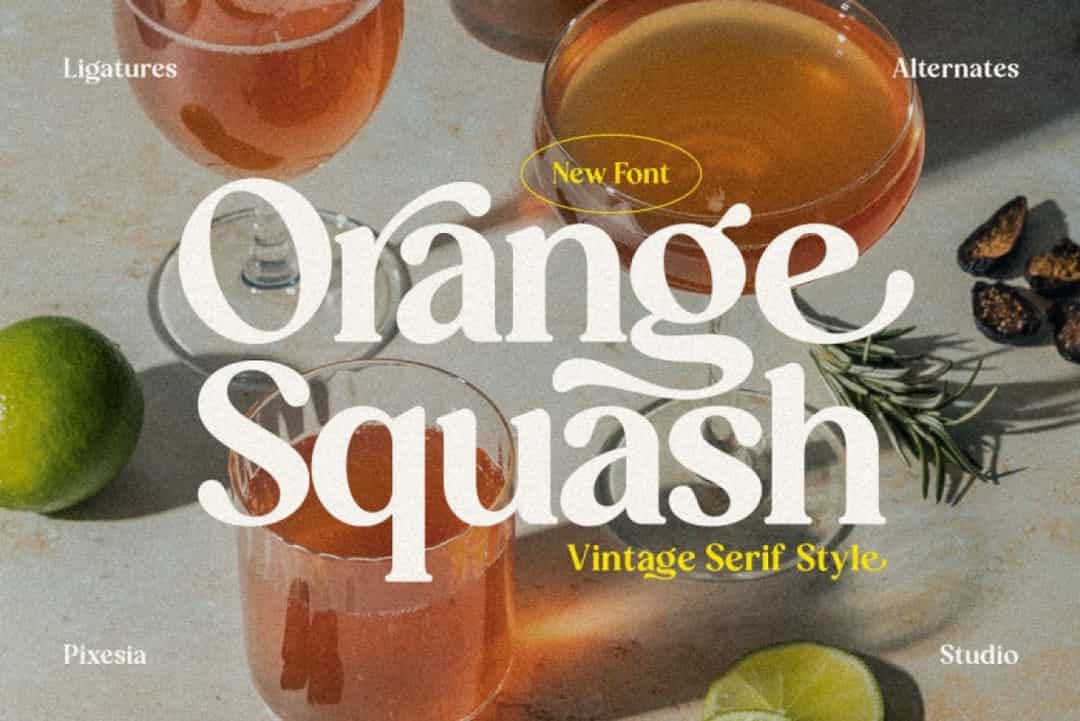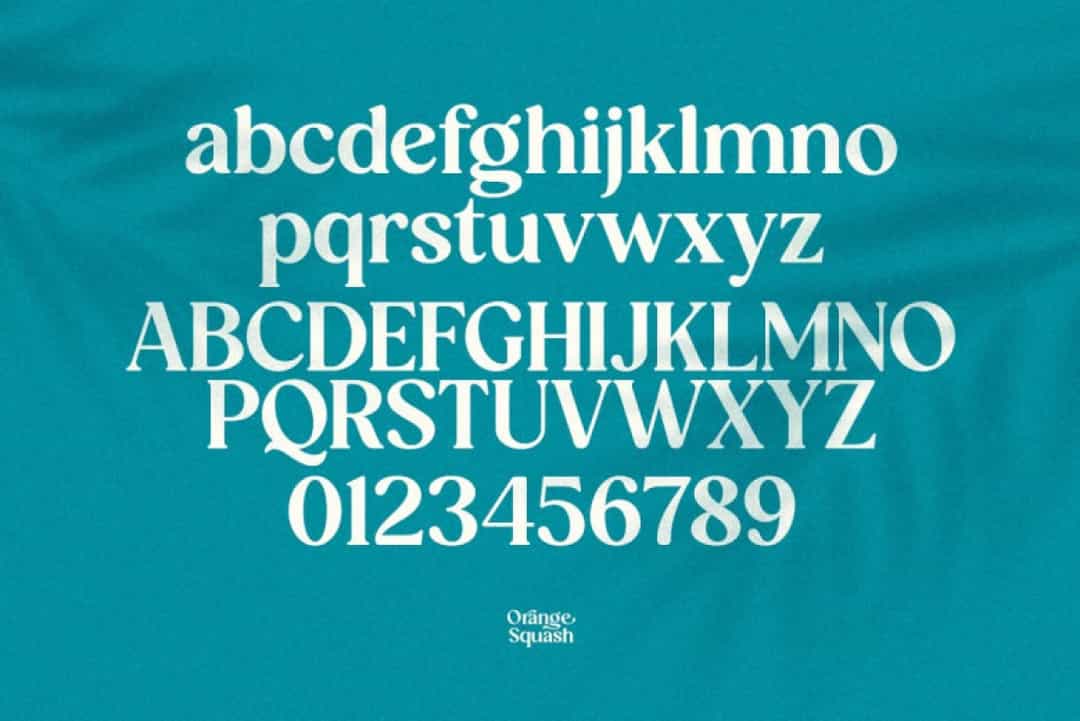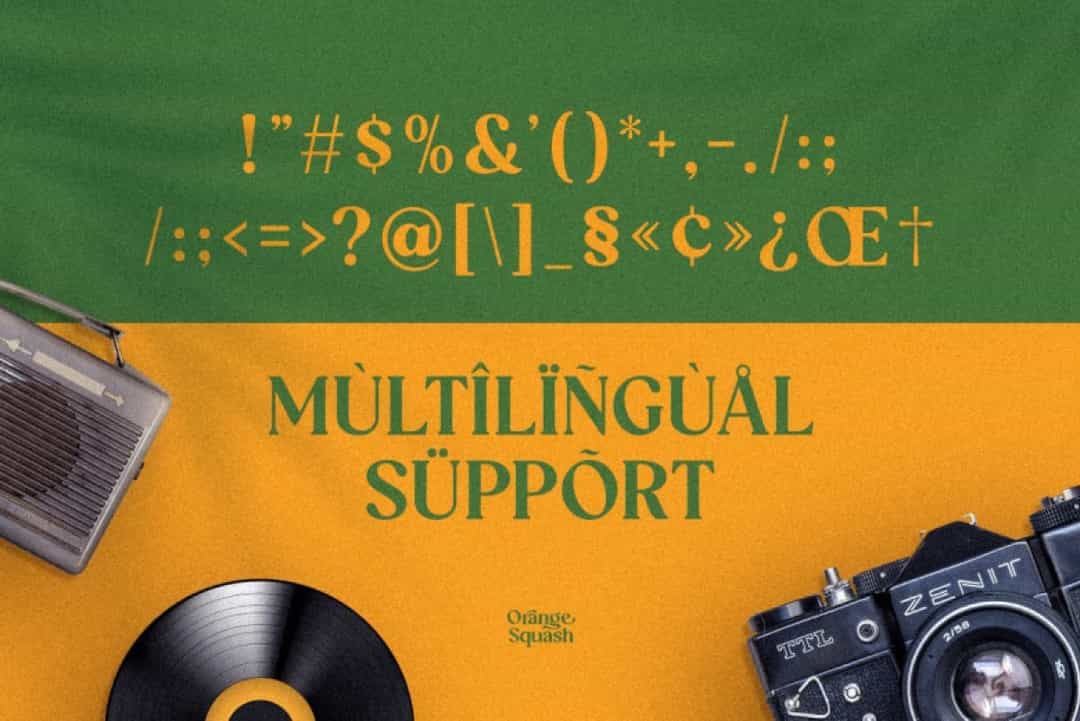
Orange Squash is a vibrant and lively classic serif font that will add nostalgia into your designs. Boasting bold serifs and bouncy curves, it makes this font perfect for creating striking headlines or logos, as well as other design elements requiring special consideration. The vintage aesthetic makes this font versatile enough for use across packaging design, advertising campaigns, editorial layout, editorial layout and editorial design projects among many other tasks.